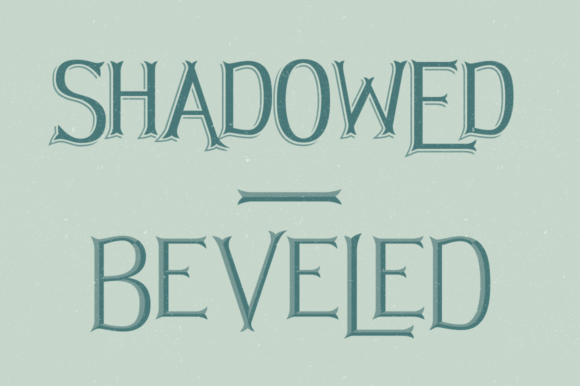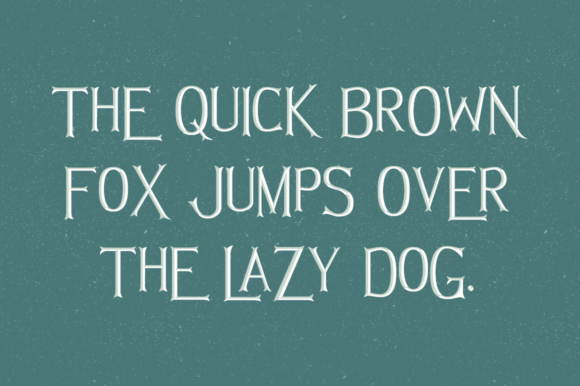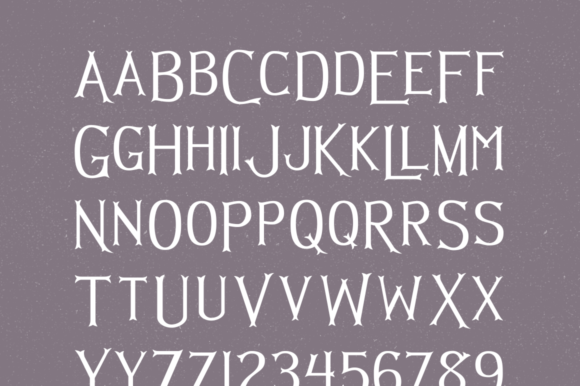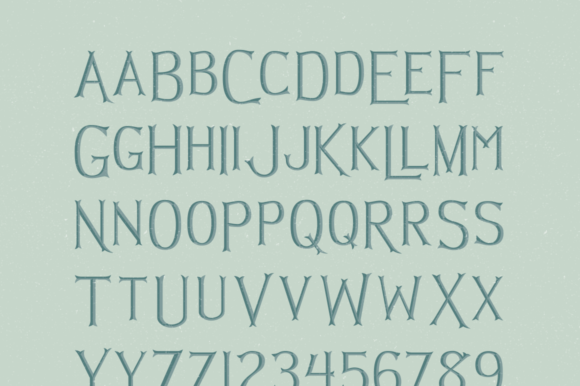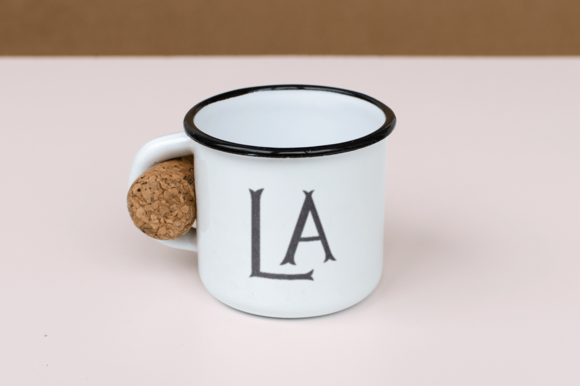
The Hellmuth Family Font: A Unique and Versatile Typeface Inspired by New York’s Iconic Architecture
For designers and crafters looking for a font that adds a touch of elegance and sophistication to their projects, the Hellmuth Family Font is an excellent choice. This distinctive typeface is loosely based on the entrance to the Hellmuth Building in New York, making it a great option for those who appreciate architectural inspiration. In this article, we’ll take a closer look at the Hellmuth Family Font, its features, and how to get the most out of this versatile font.
The Inspiration Behind the Hellmuth Family Font
The Hellmuth Family Font draws its inspiration from the Hellmuth Building in New York, a iconic structure known for its stunning architecture. The font’s design is based on the building’s entrance, which features intricate details and a unique aesthetic. By translating these architectural elements into a typeface, the Hellmuth Family Font offers a one-of-a-kind look that’s sure to make your designs stand out.
Key Features of the Hellmuth Family Font
The Hellmuth Family Font is more than just a single typeface – it’s a collection of fonts that offer a range of creative possibilities. Here are some of the key features that make this font family so versatile:
- Mix and Match Characters: For best results, it’s suggested to mix up the lowercase and uppercase characters at random. This approach creates a unique and visually appealing effect that’s perfect for headlines, titles, and other design elements.
- Shadowed Version: The Hellmuth Family Font includes a shadowed version, which adds depth and dimension to your designs. This is ideal for creating eye-catching titles, logos, or other graphics that need to pop.
- Stackable Shadow Only and Beveled Options: In addition to the shadowed version, the font family also includes stackable shadow only and beveled options. These allow you to create complex, layered designs that add texture and interest to your projects.
Using the Hellmuth Family Font in Your Designs
So, how can you use the Hellmuth Family Font in your designs? Here are a few ideas to get you started:
- Headings and Titles: The Hellmuth Family Font is perfect for creating bold, eye-catching headings and titles. Use the mix-and-match character approach to create a unique look that’s sure to grab attention.
- Logos and Branding: The font’s architectural inspiration makes it a great choice for logos and branding projects. Use the shadowed version or stackable options to add depth and dimension to your designs.
- Signage and Displays: The Hellmuth Family Font is also well-suited for signage and display projects. Use the beveled options to create a 3D effect that adds texture and interest to your designs.
Tips and Tricks for Getting the Most Out of the Hellmuth Family Font
To get the most out of the Hellmuth Family Font, here are a few tips and tricks to keep in mind:
- Experiment with Character Combinations: Don’t be afraid to try out different character combinations to find the look that works best for your project.
- Play with Layering: Use the stackable shadow only and beveled options to create complex, layered designs that add depth and interest to your projects.
- Adjust Font Sizes: Experiment with different font sizes to create visual hierarchy and add emphasis to your designs.
The Hellmuth Family Font is a unique and versatile typeface that’s perfect for designers and crafters looking to add a touch of elegance and sophistication to their projects. With its architectural inspiration, mix-and-match character approach, and range of creative options, this font family is sure to inspire. Whether you’re working on a logo, heading, or signage project, the Hellmuth Family Font is an excellent choice.